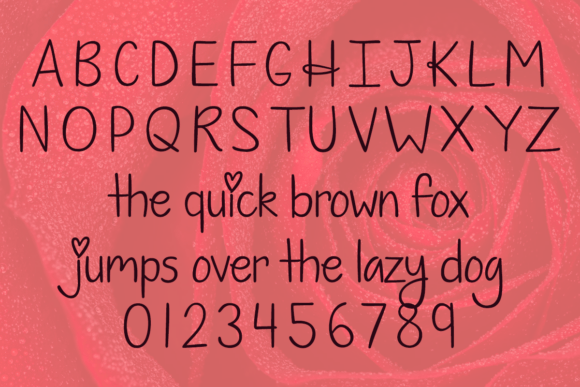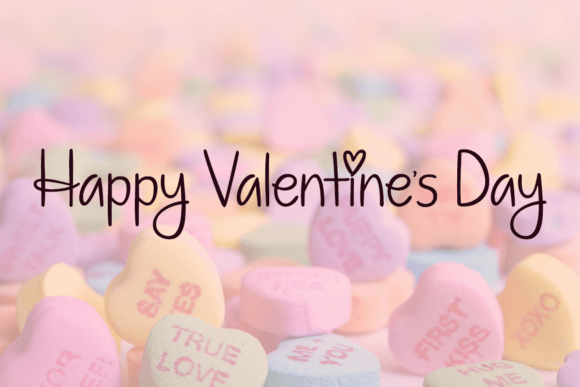
Introduction to Romantic Song Font
As a designer, there’s nothing quite like the thrill of creating something special for a loved one. Whether it’s a Valentine’s Day card, a heartfelt letter, or a custom wedding invitation, the right font can make all the difference. That’s why I’m excited to introduce you to the Romantic Song Font – a charming handwritten font that’s sure to add a touch of love and warmth to your projects.
With its playful strokes and sweet curves, the Romantic Song Font is a high-quality design resource that’s perfect for creative projects. Whether you’re working on a romantic design or just need a touch of whimsy, this font is sure to deliver. And the best part? It’s a free download, making it a valuable resource for designers on a budget. So why settle for a generic font when you can add a little romance to your design with the Romantic Song Font?
Imagine adding a beautiful, transparent background to your design, and using the Romantic Song Font to add a personal touch. It’s the perfect way to make your creative project stand out, and show your loved one just how much you care.
Key Features of Romantic Song Font
- High-quality design resource ideal for creative projects, including wedding invitations, music sheets, and more.
- Unique, hand-drawn design with a transparent background, allowing for easy customization and layering in your creative project.
- Perfect for music-related projects, such as song lyrics, album artwork, or concert posters, due to its elegant and romantic aesthetic.
Honest Review: Romantic Song Font
I recently had the chance to dive into the Romantic Song Font and I’m here to share my honest thoughts. As a designer, I’m always on the lookout for high-quality design resources that can elevate my creative projects. In this case, the Romantic Song Font did not disappoint.
What works well is the font’s elegant and romantic vibe, making it perfect for projects that require a touch of whimsy and sophistication. The font is available for free download, which is a huge plus in my book. I also appreciate the transparent background option, which gives me the flexibility to layer the font over different colors and textures.
- ✨ Elegant and romantic design aesthetic
- ✨ Transparent background option for flexibility
That being said, there are a few limitations to consider. The font’s readability can be a bit of an issue when used in small sizes, and the character set is not as extensive as some other fonts I’ve worked with.
- ⚠️ Limited character set
- ⚠️ Readability issues in small sizes
Overall, I’m impressed with the Romantic Song Font and would recommend it to designers working on creative projects that require a touch of romance and elegance.
Use the Romantic Song Font on a transparent background to add a touch of elegance to your design. You can also use it in conjunction with other high-quality design resources to create a unique and captivating visual effect.
The Romantic Song Font is perfect for creative projects that require a touch of romance, such as wedding invitations, love songs, or poetry. You can also use it in advertising and marketing materials to convey a sense of sophistication and style. The font is available for free download, making it an ideal design resource for any project.